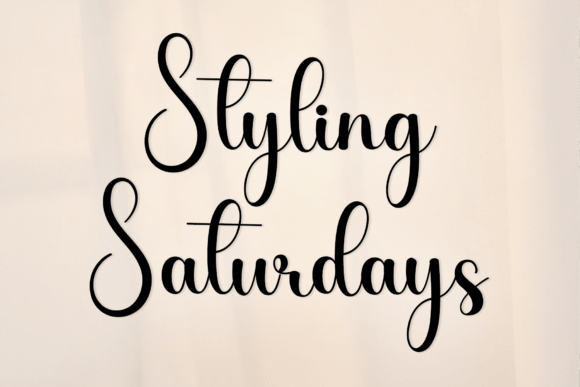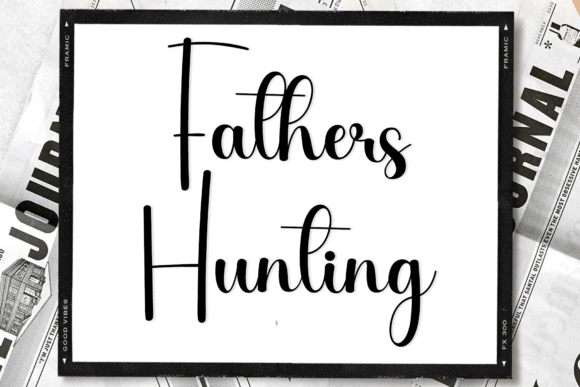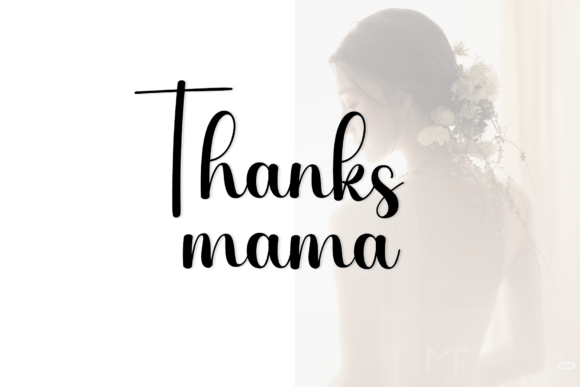
Discover the Timeless Charm of Haritage Graduating Font
Are you a designer or crafter looking for a font that can add a touch of elegance and sophistication to your creative projects? Look no further than the Haritage Graduating Font, a lovely and timeless handwritten font that is sure to make your designs come alive.
What Makes Haritage Graduating Font So Special?
Haritage Graduating is a beautifully crafted handwritten font that boasts a unique and distinctive style. Every letter has a special touch that sets it apart from other fonts, making it perfect for creating eye-catching logos, branding, and quotes.
One of the standout features of Haritage Graduating Font is its timeless quality. Unlike trendy fonts that can quickly go out of style, this font has a classic appeal that will endure for years to come. Whether you’re creating a logo for a business, designing a craft project, or simply looking for a font to add some personality to your digital creations, Haritage Graduating is an excellent choice.
Haritage Graduating Font is a versatile font that can be used in a wide range of creative projects. Designers will love the font’s unique and beautiful touch, which can add a touch of sophistication to any design. Crafters, meanwhile, will appreciate the font’s playfulness and charm, making it perfect for handmade crafts, DIY projects, and other creative endeavors.
Some of the many uses for Haritage Graduating Font include:
• Creating eye-catching logos and branding for businesses
• Designing handmade crafts, such as cards, gift tags, and other paper crafts
• Adding a personal touch to digital creations, such as social media graphics and blog posts
• Creating inspirational quotes and typography art
Why Choose Haritage Graduating Font?
So why choose Haritage Graduating Font over other fonts? Here are just a few reasons:
• Unique and distinctive style: Every letter has a special touch that sets it apart from other fonts.
• Timeless quality: This font has a classic appeal that will endure for years to come.
• Versatility: Haritage Graduating Font can be used in a wide range of creative projects.
• Ease of use: This font is easy to read and use, making it perfect for designers and crafters of all skill levels.
Tips for Using Haritage Graduating Font
Here are a few tips for getting the most out of Haritage Graduating Font:
• Experiment with different sizes and colors: Haritage Graduating Font looks great in a variety of sizes and colors, so don’t be afraid to experiment and find the perfect combination for your project.
• Pair with other fonts: This font pairs well with other fonts, so try combining it with a bold font for headings or a clean font for body text.
• Use for display text: Haritage Graduating Font is perfect for display text, such as headings, titles, and quotes.
Font Name Haritage Graduating Font
Author Sansana
In conclusion, Haritage Graduating Font is a lovely and timeless handwritten font that is perfect for designers and crafters looking to add a touch of elegance and sophistication to their creative projects. With its unique and beautiful touch, versatility, and ease of use, this font is sure to become a favorite in your font collection.